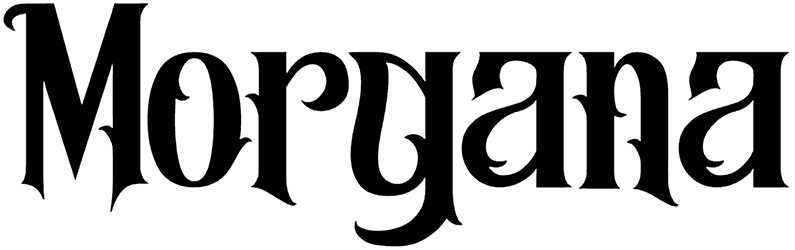
Morgana Font
If you are looking for a practical way to share a sense of vintage, classic, disorder, and professionalism with your audience through graphic content, we offer you to utilize a gothic font such as Morgana in designing artwork.
Since its characters are a little bit tilted, curved, and imbalanced, this font can be suitable for creating video game posters, digital brochures, wood engravings, product packaging, and social media posts.